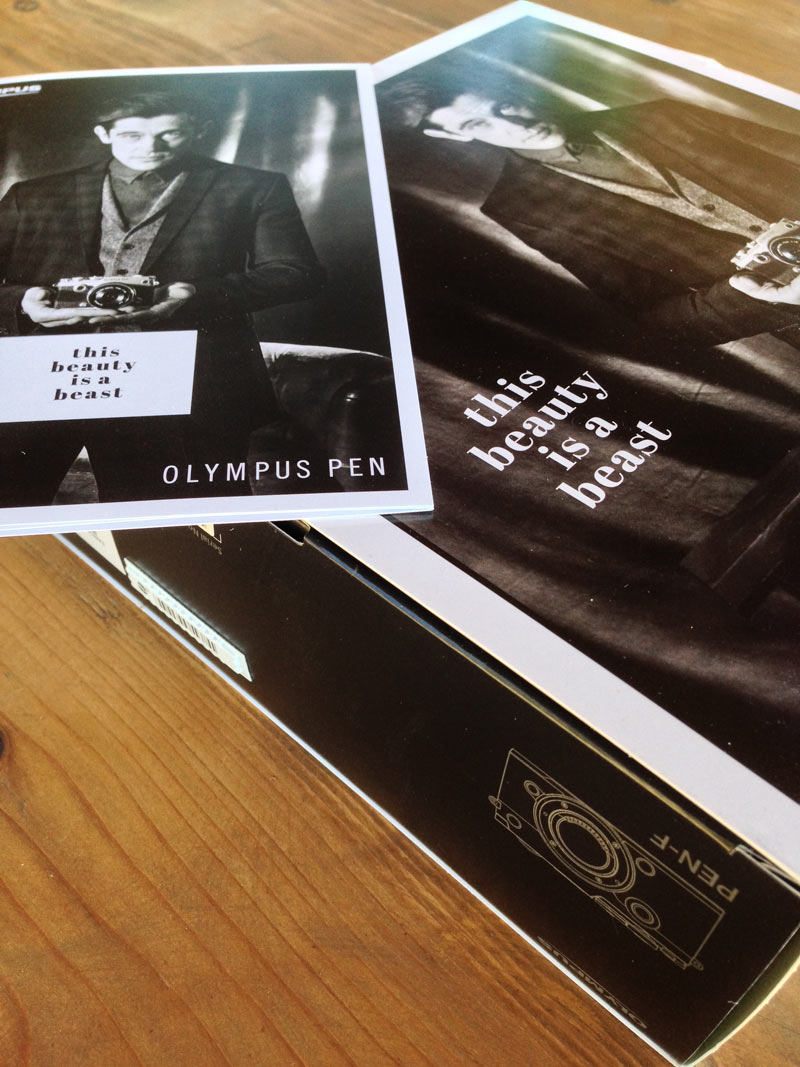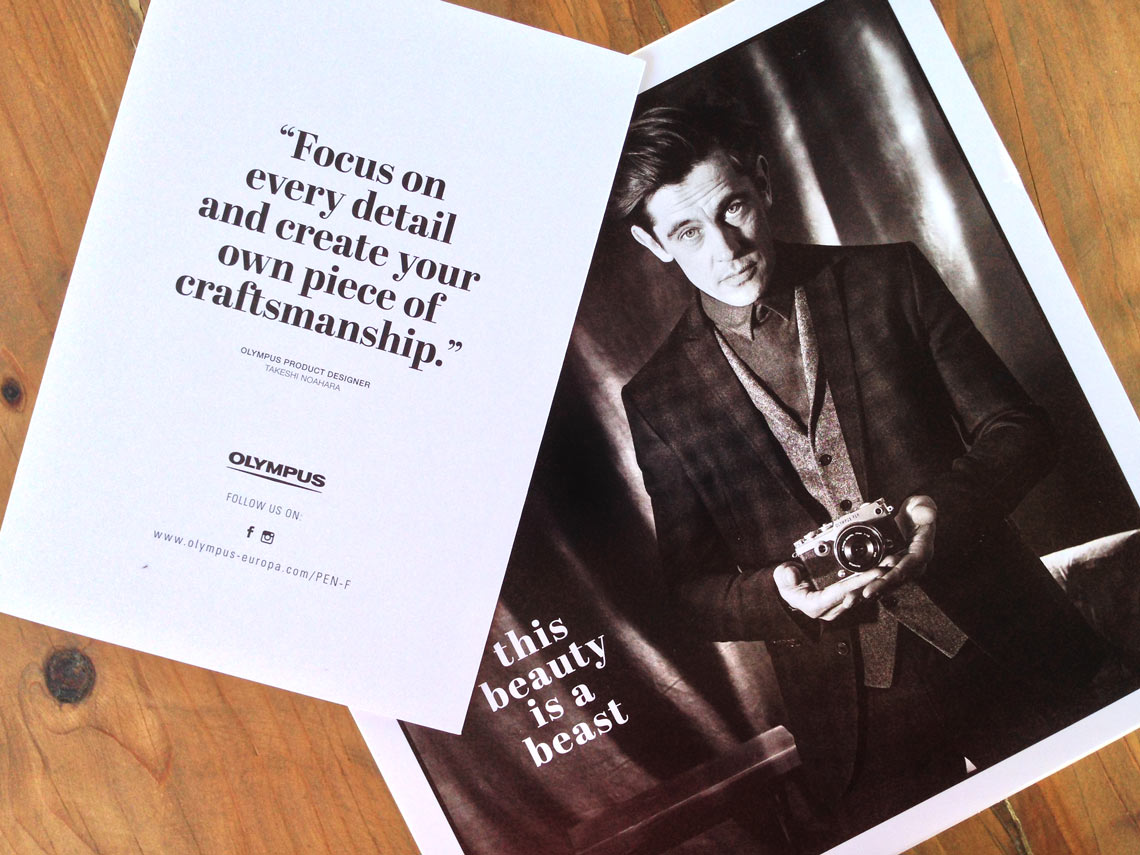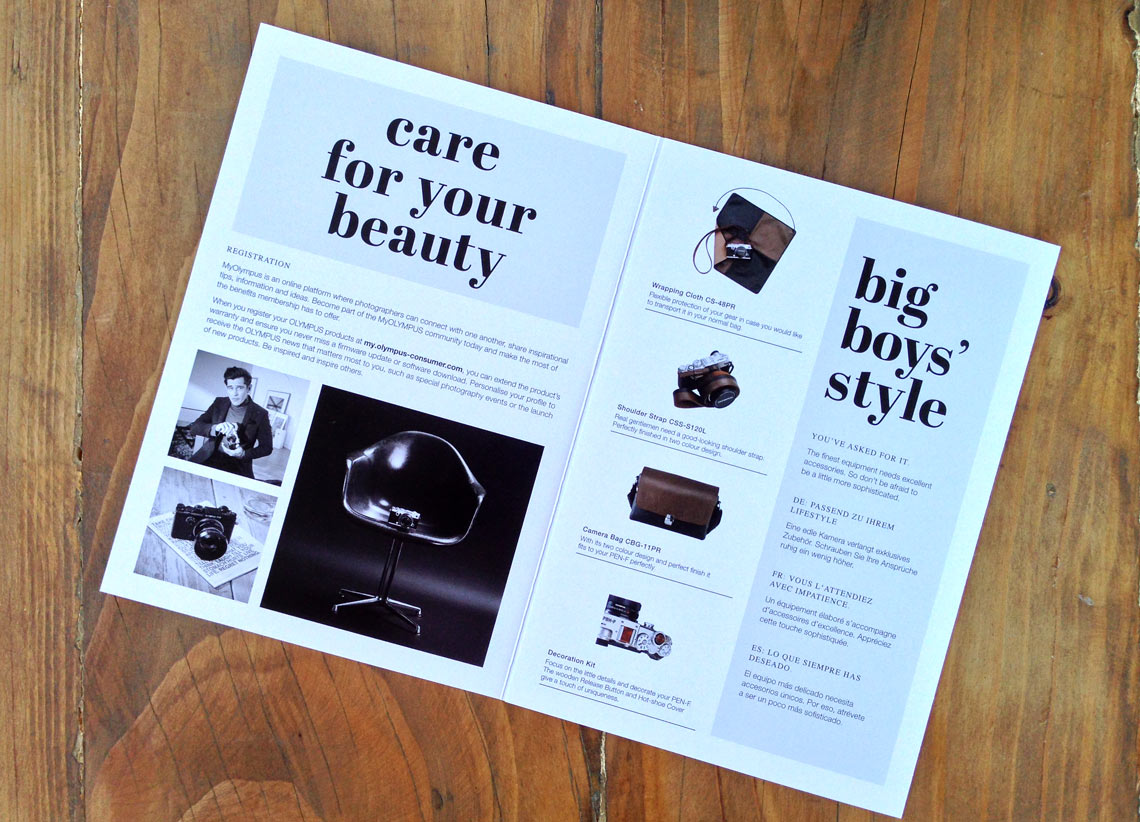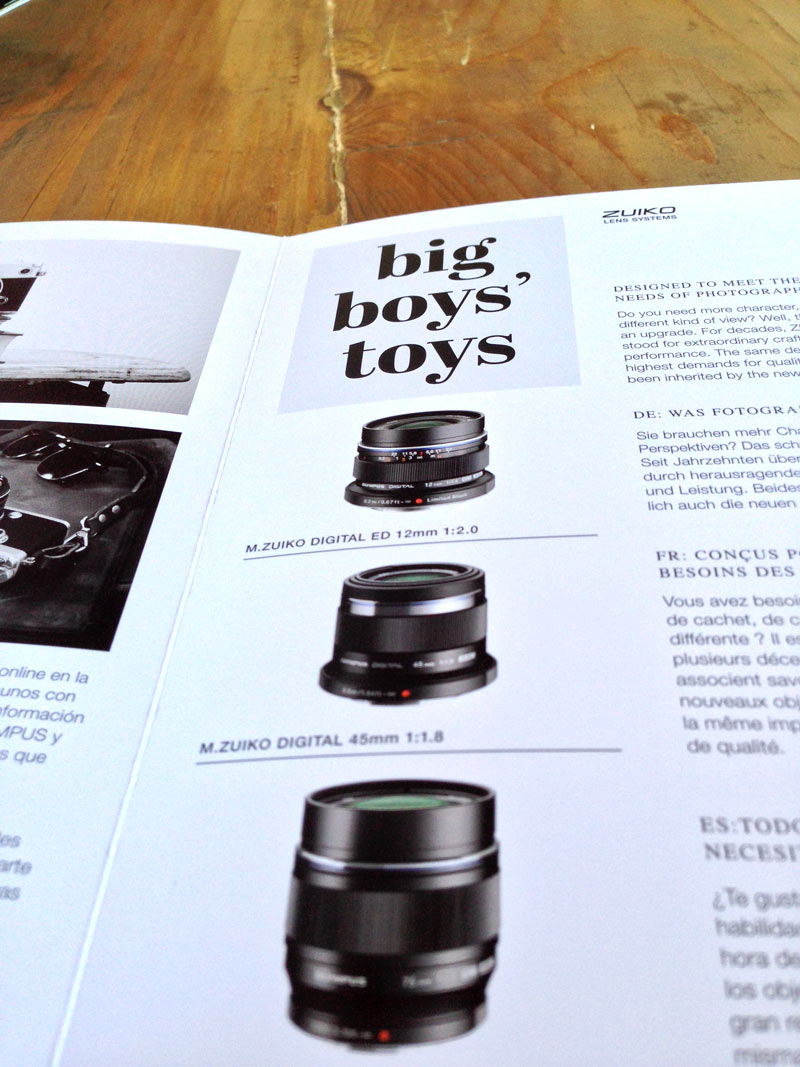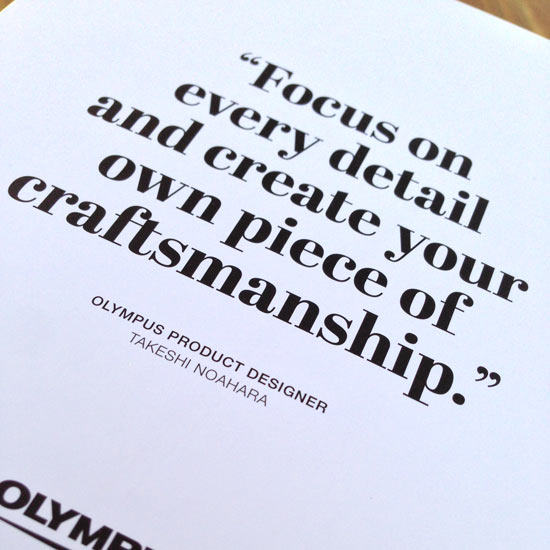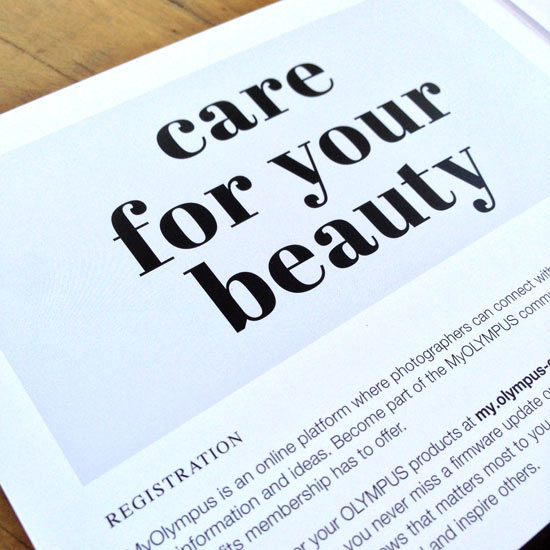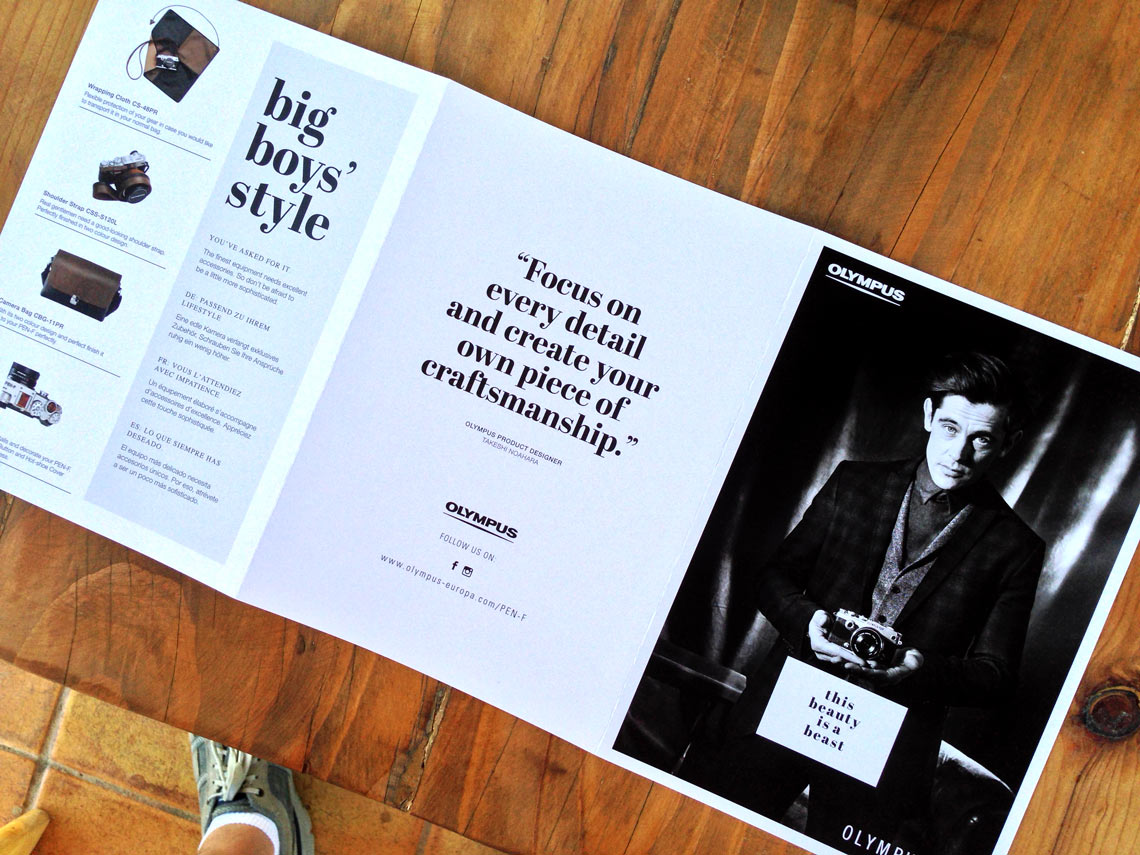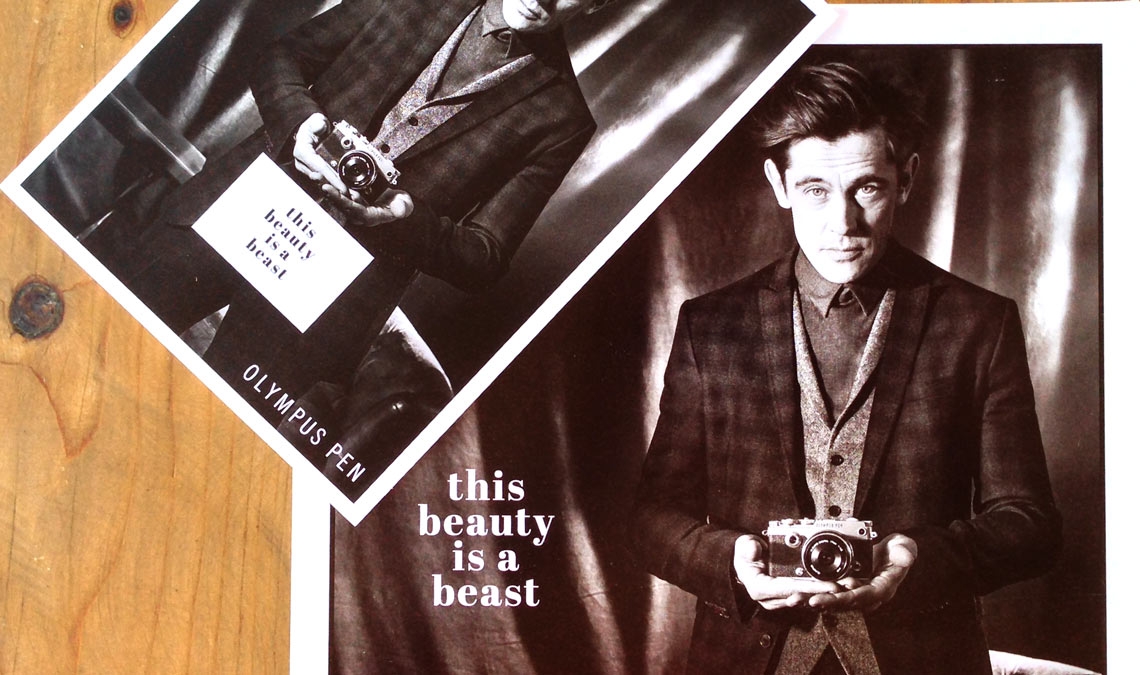
Olympus packaging
Abril Display sets a classic, yet fresh tone for Olympus cameras, with big, bold titles and call-outs.
Our Abril font family has been used beautifully in many different scenarios already, but we are particularly pleased to see it put to such great use in the packaging and promotional material for the famous Olympus SLR cameras. The branding points out craftmanship, quality, style, and beauty — all qualities of type design that are dear to us as well.